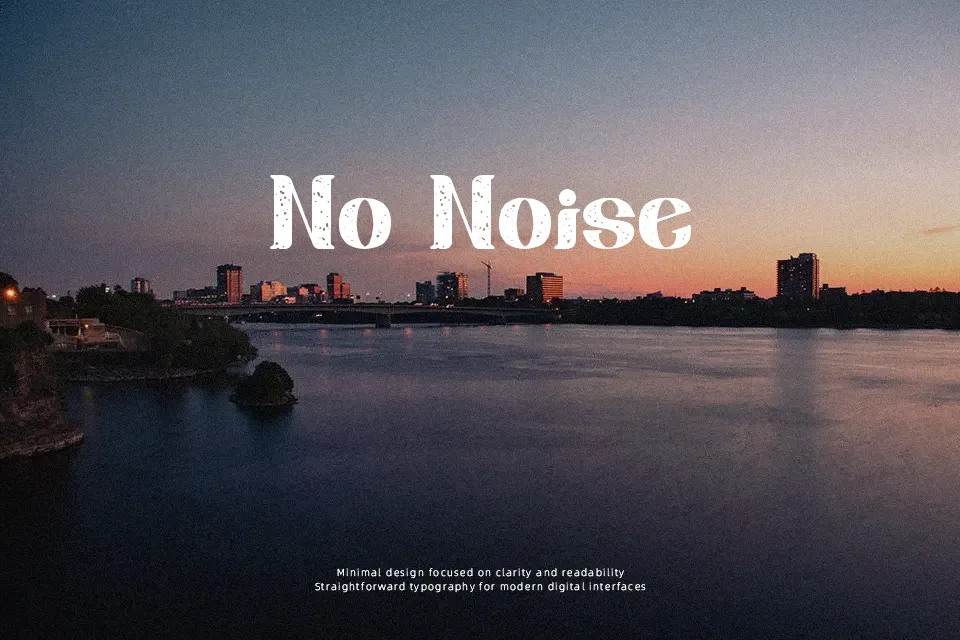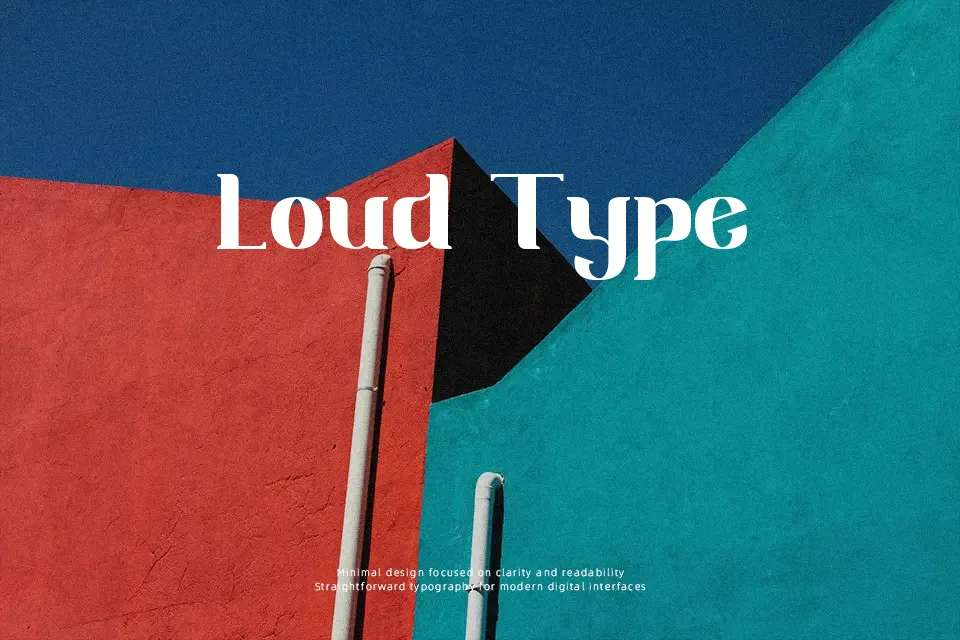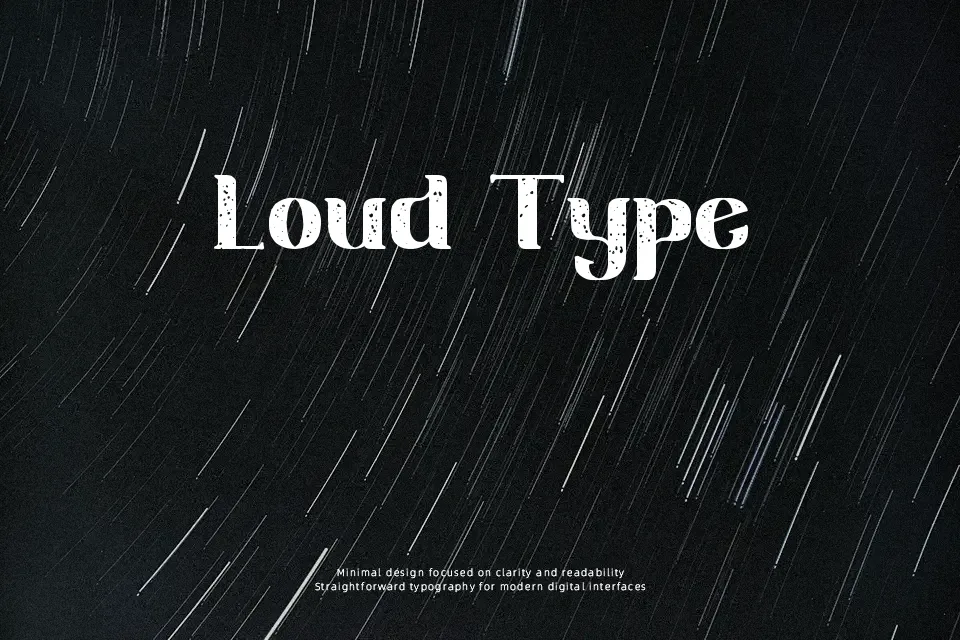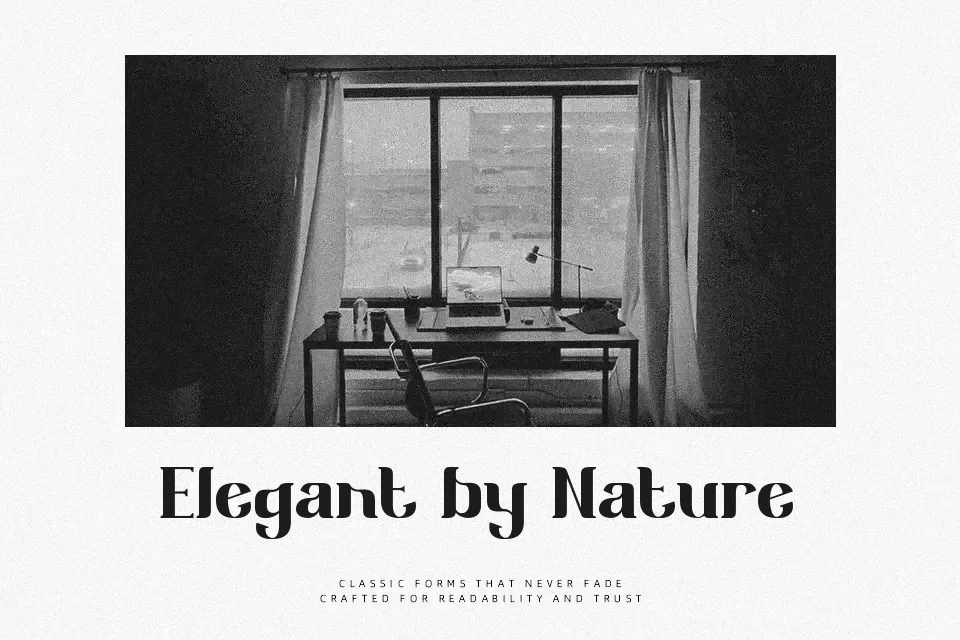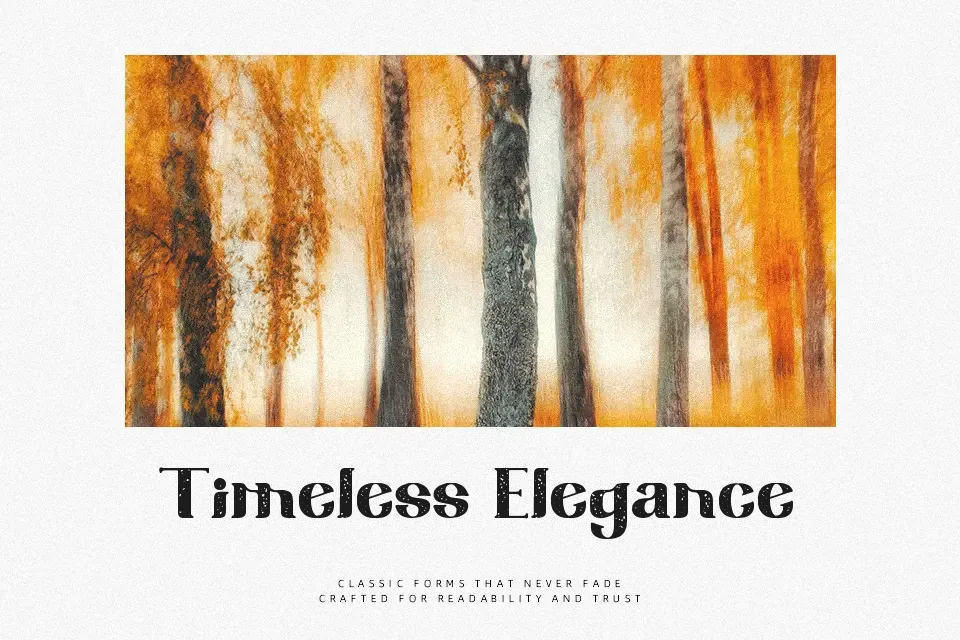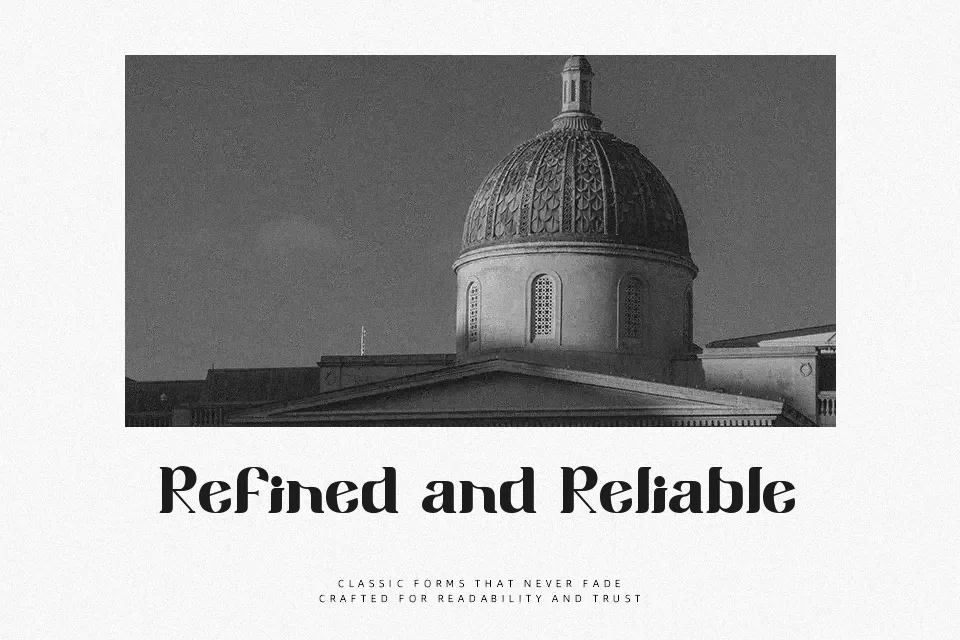
Sixty Niners Font
Featuring heavy main stems paired with fluid bracketed serifs, Sixty Niners Font exhibits an eccentric sixties-inspired aesthetic with generous internal counters. The letterforms display substantial stroke contrast and tight tracking that generate strong visual rhythm across horizontal text strings. At larger display dimensions, the balanced proportions ensure that individual characters remain striking and readable in editorial mastheads, vintage merchandise, and promotional banners. However, the exaggerated decorative curves and compact character spacing reduce reading comfort across dense multi-line paragraphs. The typeface functions most effectively as a focal display element rather than utilitarian text.
Best For: retro apparel graphics, vintage magazine covers, music event posters, craft beverage labels
Not Ideal For: long body text, technical documentation, mobile app interfaces, dense tabular data